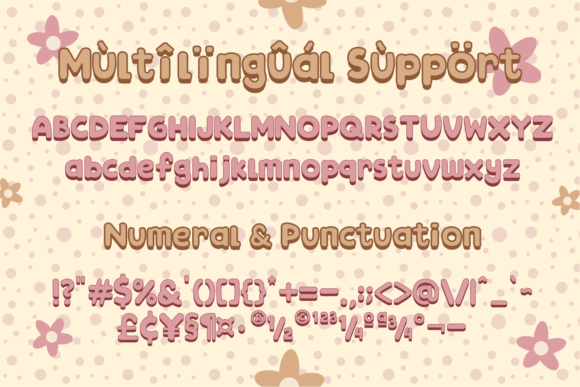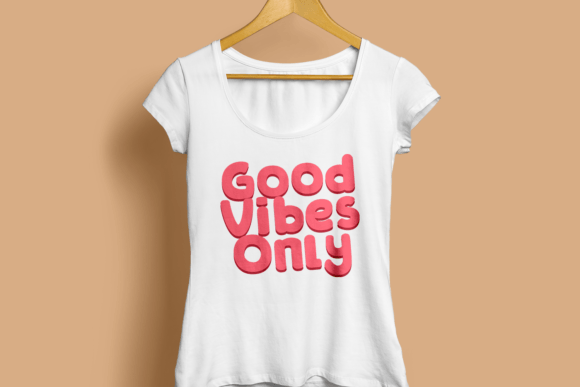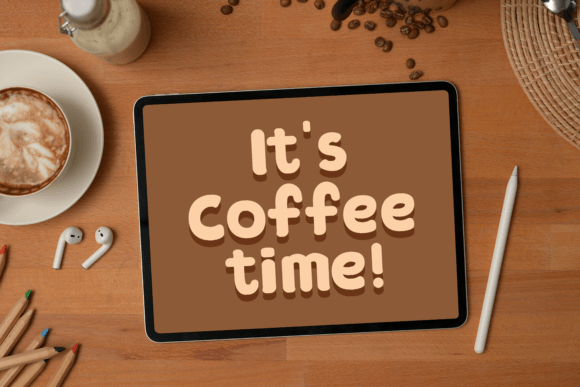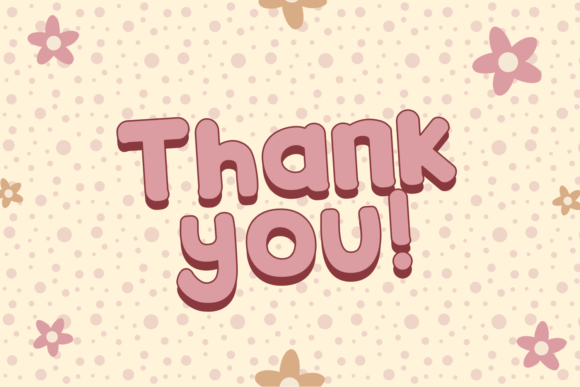
Bloom Bold & Beautiful: Introducing Desert Blossom Font!
Are you ready to add a touch of whimsy and personality to your creative projects? Look no further than Desert Blossom, a bold and captivating font that bursts with unforgettable cuteness! Inspired by the charm of the desert, this versatile typeface is meticulously crafted to bring a sense of playfulness and charm to your designs.
Unleash the Desert’s Charm in Your Designs
Desert Blossom font is the perfect addition to any design project that demands attention and personality. With its bold, playful characters, this font is ideal for:
- Headlines: Make a statement with bold and eye-catching headlines that grab attention.
- Logos: Create a memorable brand identity with a unique and captivating logo.
- Invitations: Add a touch of sweetness and charm to your invitations, making them truly special.
- Greeting Cards: Create heartfelt and personalized greeting cards that will leave a lasting impression.
- Children’s Books: Bring your stories to life with a font that’s both fun and engaging for young readers.
The Characteristics of Desert Blossom Font
So, what makes Desert Blossom font so special? Here are just a few of its standout features:
- Bold, Playful Characters: Each character is carefully crafted to be bold, playful, and attention-grabbing.
- Endearing Charm: The font exudes a sense of sweetness and charm, making it perfect for projects that need a touch of personality.
- Multilingual Versatility: Communicate your message to a wider audience with a font that supports multiple languages.
Craft Designs that Bloom with Charm and Personality
With Desert Blossom font, the design possibilities are endless! Here are a few ideas to get you started:
- Wedding Invitations: Add a touch of whimsy and romance to your wedding invitations.
- Branding and Packaging: Create a unique and memorable brand identity with Desert Blossom font.
- Social Media Graphics: Add a pop of personality to your social media graphics and stand out from the crowd.
- Children’s Products: Create engaging and fun products for kids, such as books, games, and toys.
Why Choose Desert Blossom Font?
With so many fonts to choose from, why should you choose Desert Blossom? Here are just a few reasons:
- Unique and Captivating: Desert Blossom font is unlike any other font on the market, with its bold and playful characters.
- Versatile: This font can be used for a wide range of design projects, from invitations to branding and packaging.
Get Ready to Bloom with Desert Blossom Font!
- Unleash Your Creativity: With Desert Blossom font, the design possibilities are endless!
- Stand Out from the Crowd: Make your designs truly unique and captivating with this bold and beautiful font.